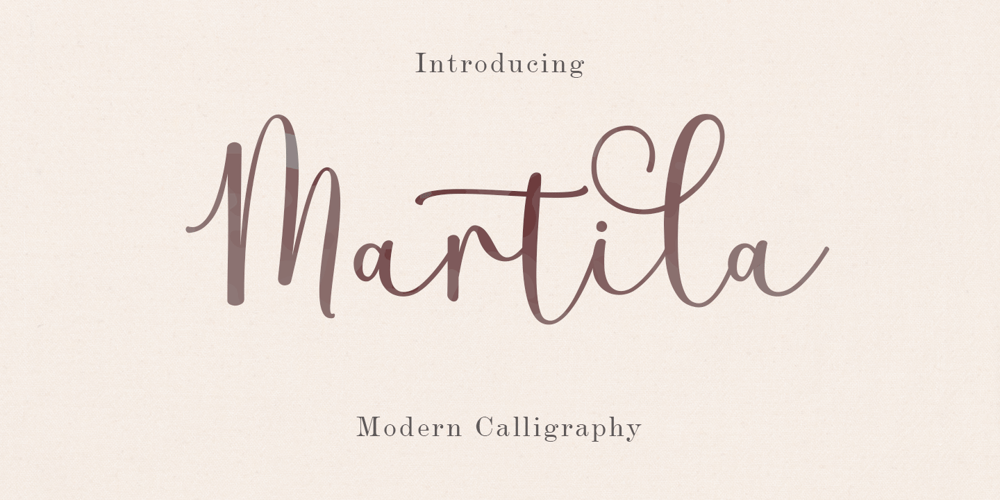
Martila Font Family was designed by Amar Lettering and published by Amarlettering. Martila contains 1 styles and family package options. Step into the charm of Font Martila, a sleek modern script font that fuses delicacy with exquisite flair. This treasure is designed with seamless, flowing brushstrokes and soft curves, making every slender letter a display of elegance at its peak. Font Martila positions itself as a top pick for those with a refined taste, providing an infusion of chic opulence. Its high-class refinement brings a spark to lush wedding invites, extravagant brand aesthetics, and eloquent editorial designs. More than just a font, Font Martila indeed represents a fashionable statement.